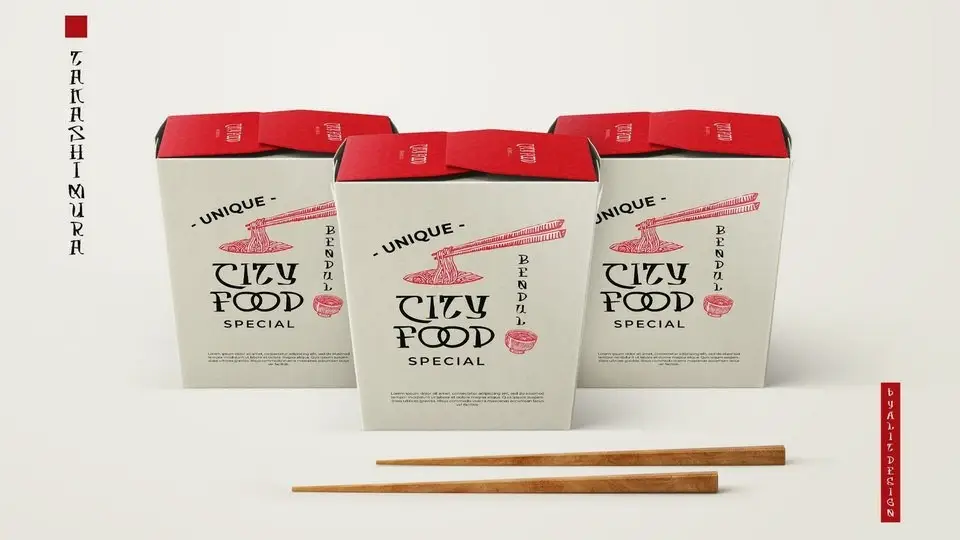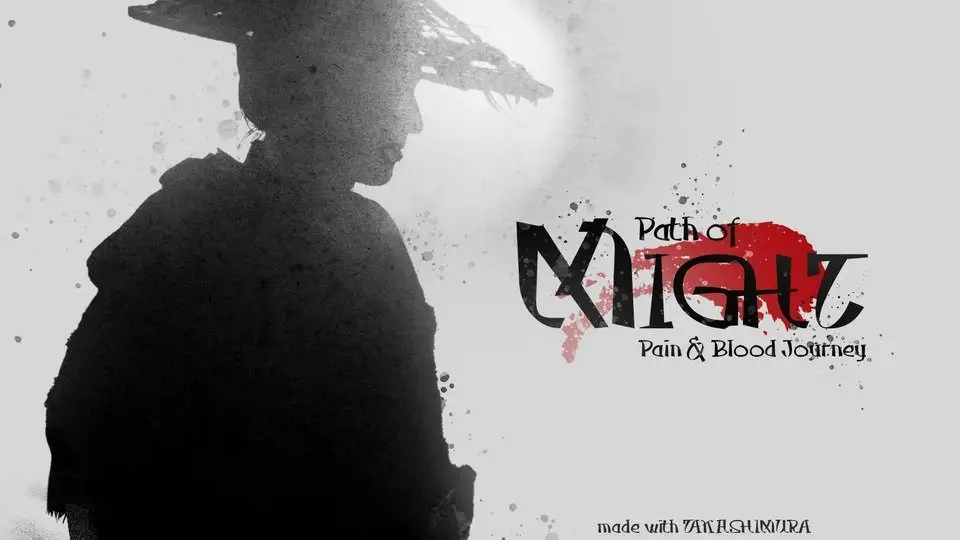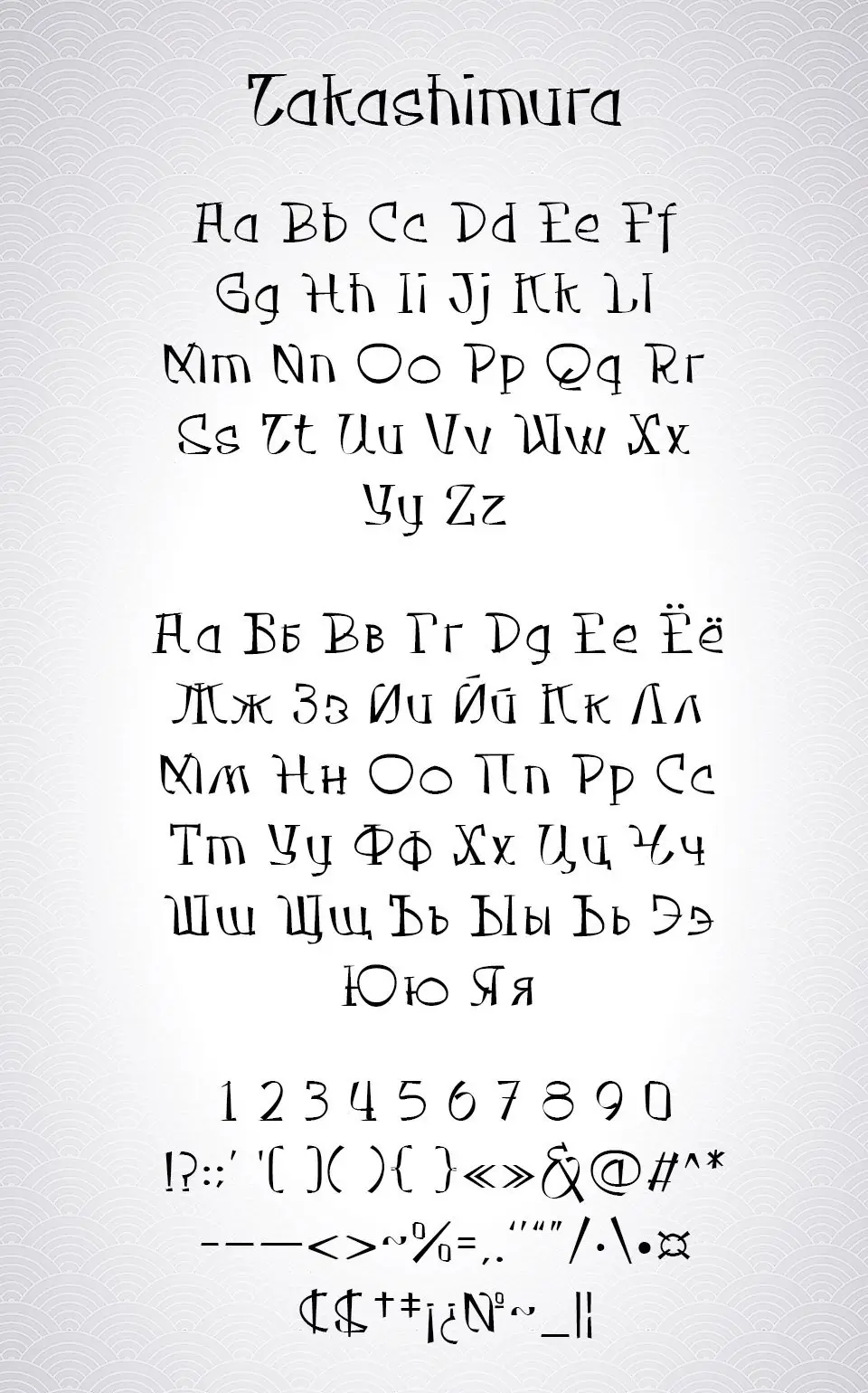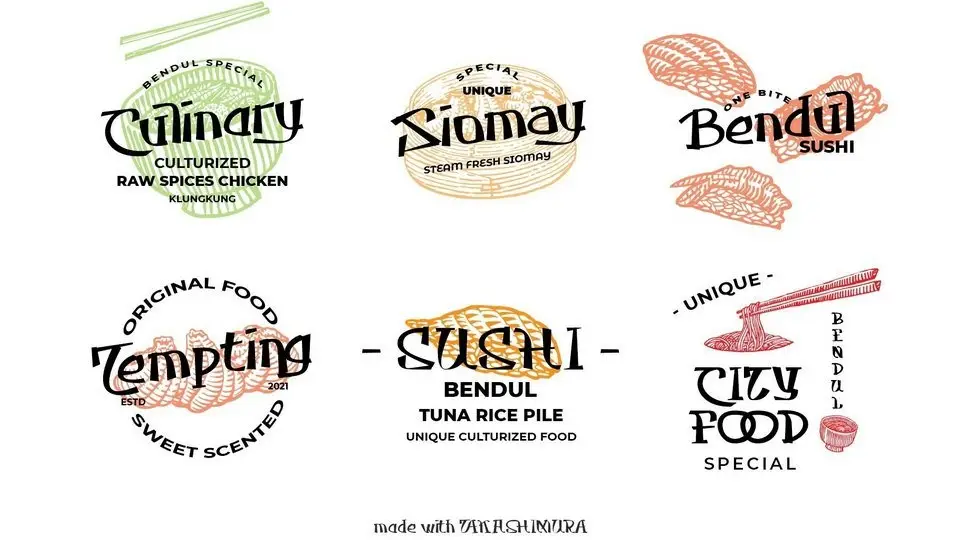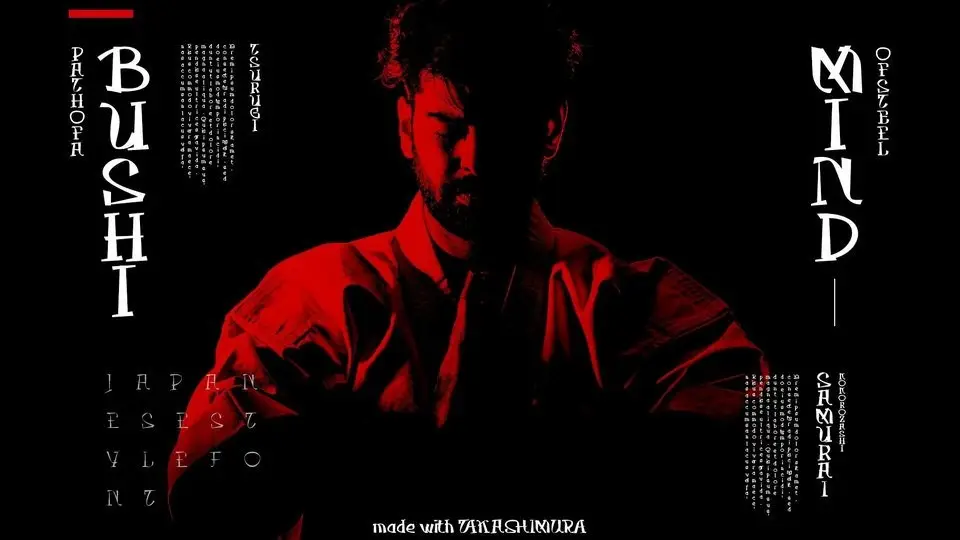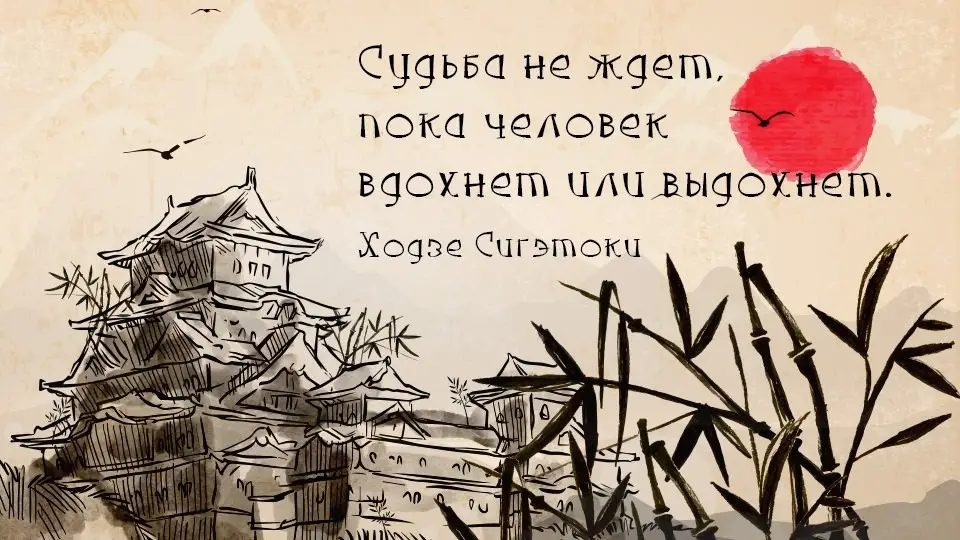
Takasimura Font: A Unique Japanese-Inspired Typeface
Are you looking for a distinctive font that captures the essence of Japanese culture? The Takasimura Font is the perfect solution. This beautifully crafted display font is ideal for enhancing your food menus, posters, flyers, and various print materials. With its elegant design, it adds a touch of authenticity to any project.
The Takasimura Font is a unique typeface inspired by traditional Japanese aesthetics. It is designed for those who want to infuse their work with a cultural flair. Whether you are creating a restaurant menu or promotional materials, this font will make your text stand out.
- ✅ Japanese-Inspired Design → Perfect for food-related projects and cultural themes.
- ✅ High Readability → Ensures your text remains clear and engaging across various mediums.
- ✅ Versatile Usage → Suitable for both digital and print applications, from menus to posters.
- ✅ Unique Aesthetic → Adds a distinctive touch that reflects Japanese artistry and tradition.
The Takasimura Font stands out not just for its beauty but also for its functionality. It is trusted by designers who seek to create authentic and culturally rich designs. By choosing this font, you are not only enhancing your project visually but also connecting with a rich heritage. It’s perfect for anyone looking to make a statement with their typography.
| Font Style | Display |
| Language Support | Japanese, Latin |